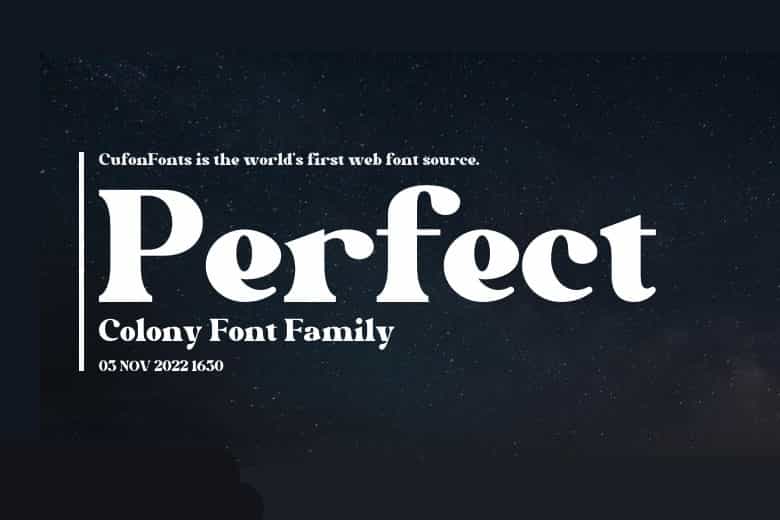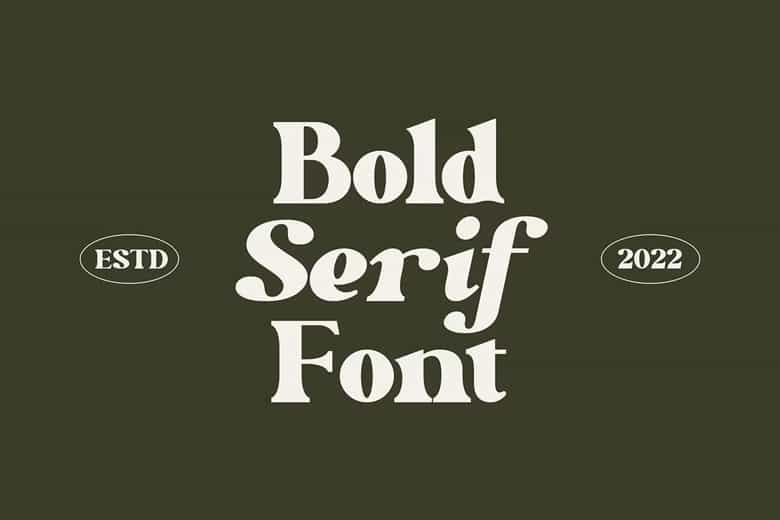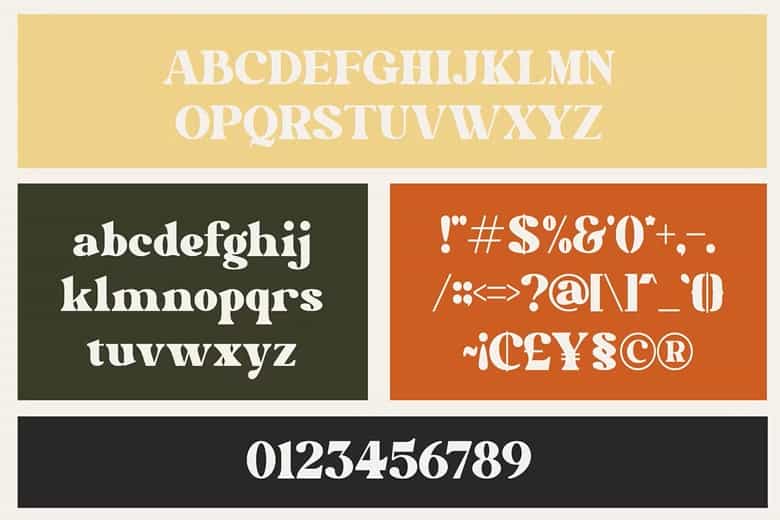
Discover Perfect Colony Font, part of the Serif collection—a versatile and unique font perfect for adding a personal touch to your projects. Download it for free and enjoy crafting designs with style, from invitations to social media posts. This font is available exclusively for personal use, giving you the freedom to create without limits. Unlock your creativity with Perfect Colony Font today!
Perfect Colony is an elegant and bold serif typeface. If you’re looking for its versatility, you will love to use it for branding, logo design, header texts, posters, or any other ideas you have in mind.